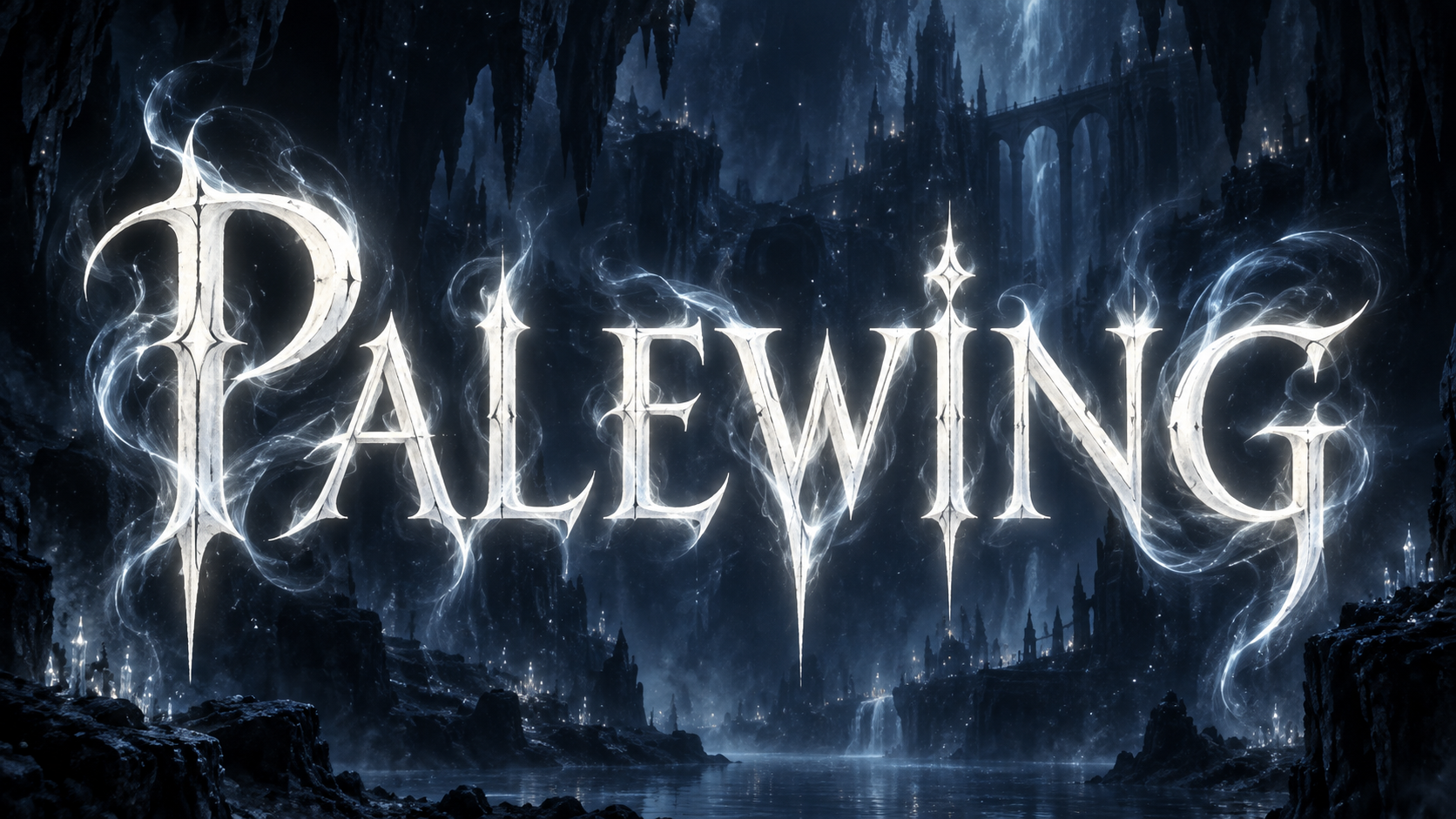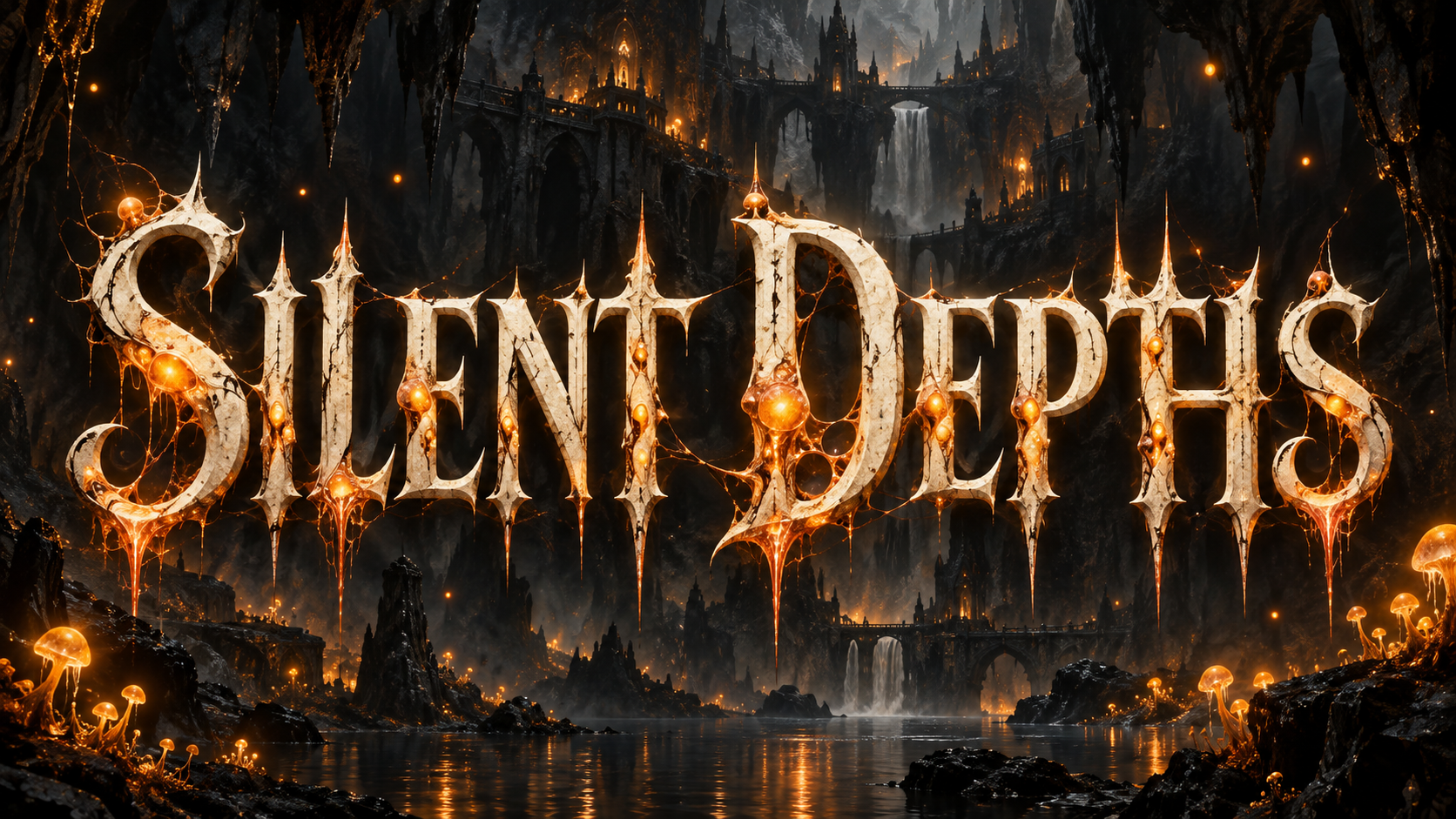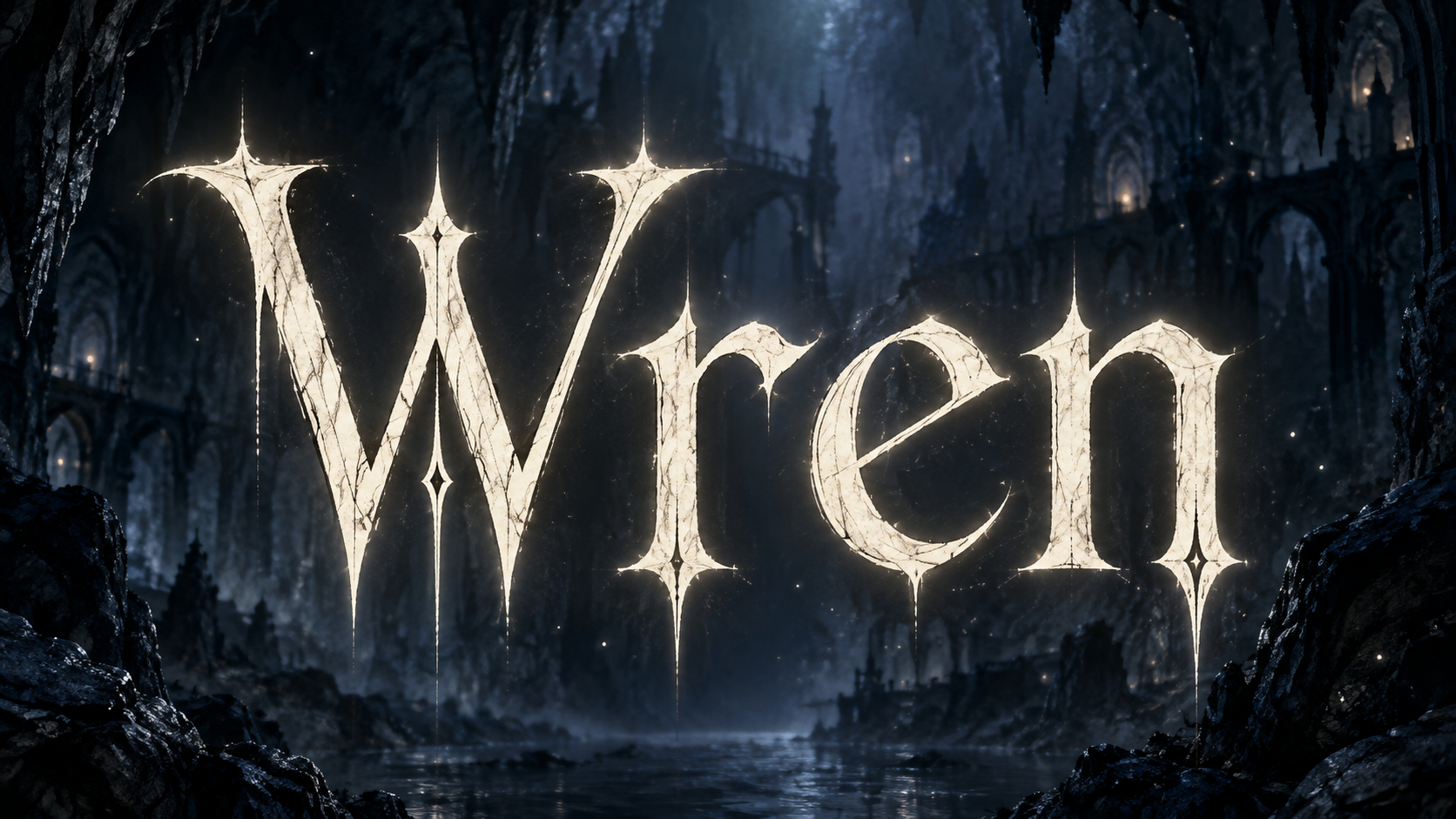
Pale hand-drawn classical capitals with curling filigree and a soft glow, inspired by the indie metroidvania. Fan-made.
Pale Ink starts with quiet bone-white lettering. Soul Glow adds a brighter atmosphere around a short title.
The title, interface text, and Silksong title are different references. The checked official pages do not identify their exact font files.
Compare WREN across five Standard samples at 1672 × 941 pixels. Each link opens the matching text, preset, model, and wide canvas without starting a generation. PALEWING and SILENT DEPTHS remain as additional examples below.
Pale Ink
Soul Glow
Infected Orange
Crystal Cavern
Ancient Stone
The Hollow Knight font that players search for is the game's title lettering: elegant classical serif capitals with a slight hand-drawn wobble, crisp wedge serifs, a pale bone-white color, and curling filigree ornaments above and below the word, set against deep blue-black. It feels ancient, quiet, and a little sad. Fontique does not provide that typeface or reproduce the game logo. Our AI renders your own words in an original style inspired by that visual language.
Presets descend through the kingdom. Pale Ink is the base hand-drawn serif with soft glow, Soul Glow adds white wisps of spirit energy, Infected Orange spreads glowing amber blisters across the letters, Crystal Cavern grows pink crystals on them, and Ancient Stone carves them into moss-covered ruins.
Additional lettering examples. Captions distinguish model samples from original design references.